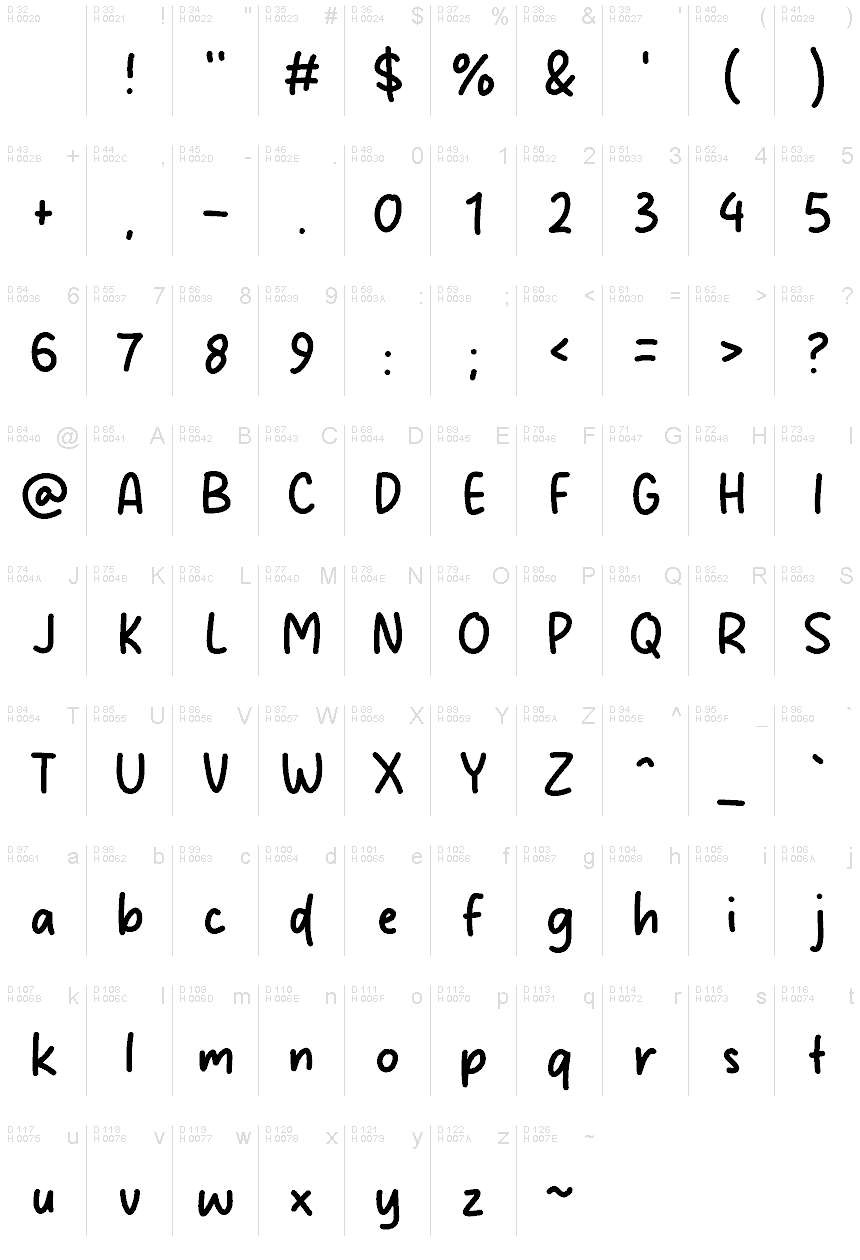
Study Clash
This is Study Clash, a handwritten brush script font inspired by contemporary trends. Its playful style blends round characters with thick, curvy designs, making it both trendy and fun for a unique appearance. The casual and modern personality it brings to any project instantly grabs the attention of viewers.
Study Clash is an amazing choice for invitations, cards, advertisements, and poster design, while the fluid style is also great for social media posts and apparel design.